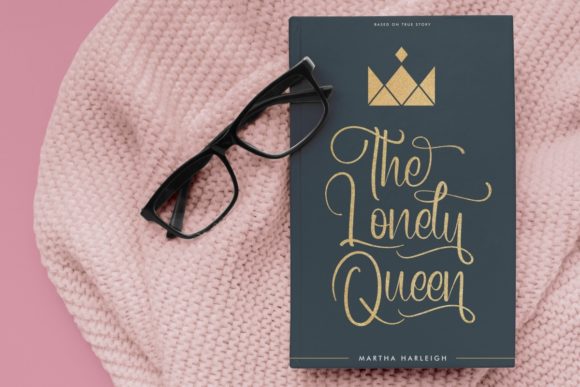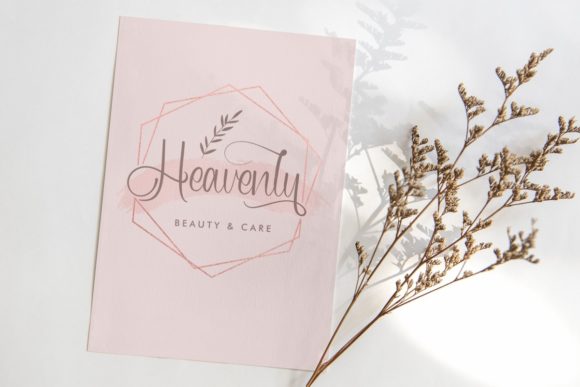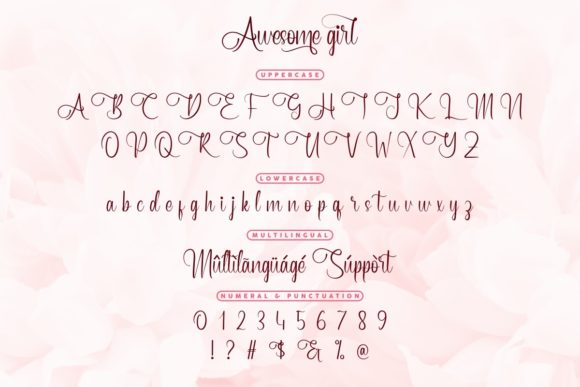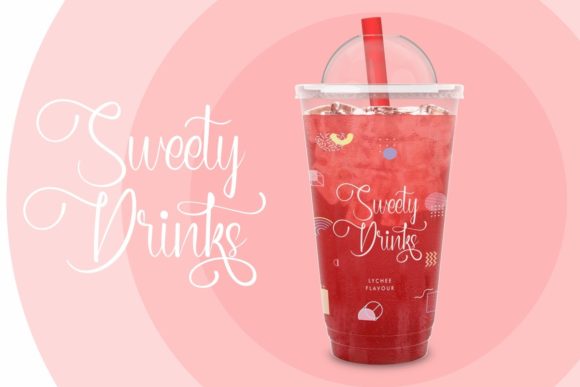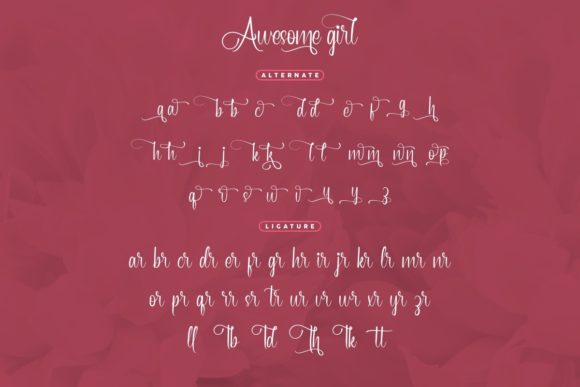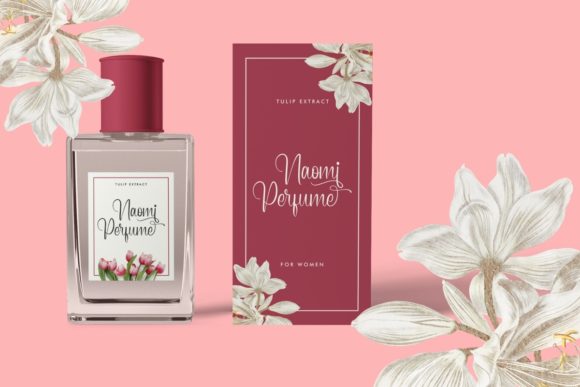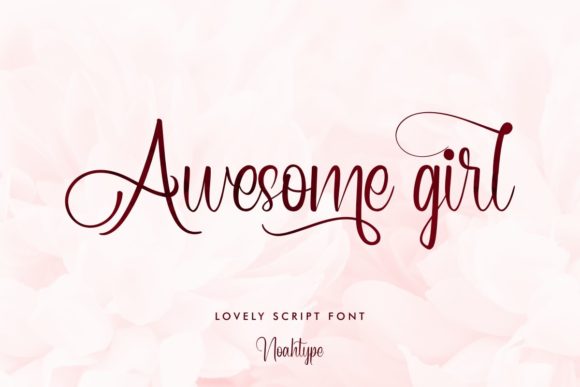
Introducing Awesome Girl Font: Elevate Your Designs with Luxury and Elegance
Are you a designer or crafter looking for a font that exudes luxury and sophistication? Look no further than the Awesome Girl Font, a stunning thin lettered and graceful script font that is sure to add a touch of elegance to any design project. In this article, we’ll dive into the features and benefits of this beautiful font, and explore how it can elevate your designs to the next level.
What is Awesome Girl Font?
Awesome Girl Font is a gorgeous script font that is characterized by its thin letters and flowing curves. This font is perfect for designers who want to add a touch of luxury and sophistication to their designs. Whether you’re working on a branding project, a wedding invitation, or a craft project, Awesome Girl Font is sure to impress.
Key Features of Awesome Girl Font
• Thin Lettered and Graceful Script Font: Awesome Girl Font features thin letters and flowing curves that give it a elegant and sophisticated look.
• PUA Encoded: This font is PUA (Private Use Area) encoded, which means that you can access all of the amazing glyphs and ligatures with ease.
• Luxury Spark: Awesome Girl Font is designed to add a touch of luxury to any design project. Its elegant curves and flowing lines make it perfect for high-end branding, wedding invitations, and more.
Benefits of Using Awesome Girl Font
So why should you choose Awesome Girl Font for your design projects? Here are just a few benefits of using this stunning font:
• Elegance and Sophistication: Awesome Girl Font adds a touch of elegance and sophistication to any design project. Its thin letters and flowing curves make it perfect for high-end branding, wedding invitations, and more.
• Versatile: Awesome Girl Font is perfect for a wide range of design projects, from branding and advertising to wedding invitations and craft projects.
How to Use Awesome Girl Font in Your Designs
Using Awesome Girl Font in your designs is easy. Here are a few tips to get you started:
• Pair it with Other Fonts: Awesome Girl Font pairs perfectly with other fonts, such as bold sans serif fonts or elegant serif fonts.
• Use it for Headings and Titles: This font is perfect for headings and titles, where you want to make a statement and add a touch of elegance to your design.
• Experiment with Colors and Textures: Awesome Girl Font looks great in a variety of colors and textures. Experiment with different combinations to find the one that works best for your design.
Who is Awesome Girl Font for?
Awesome Girl Font is perfect for designers and crafters who want to add a touch of luxury and elegance to their designs. This font is ideal for:
• Graphic Designers: If you’re a graphic designer looking for a font that will elevate your designs to the next level, Awesome Girl Font is a great choice.
• Wedding Designers: This font is perfect for wedding designers who want to create beautiful and elegant wedding invitations, stationery, and more.
• Crafters: If you’re a crafter who loves to create handmade cards, gift tags, and other paper crafts, Awesome Girl Font is a great addition to your font collection.
Font Name Awesome Girl Font
Author NoahType
In conclusion, Awesome Girl Font is a stunning thin lettered and graceful script font that is sure to add a touch of luxury and elegance to any design project. With its PUA encoding and easy-to-use glyphs and ligatures, this font is perfect for designers and crafters who want to create high-end designs with ease. Whether you’re working on a branding project, a wedding invitation, or a craft project, Awesome Girl Font is a great choice.